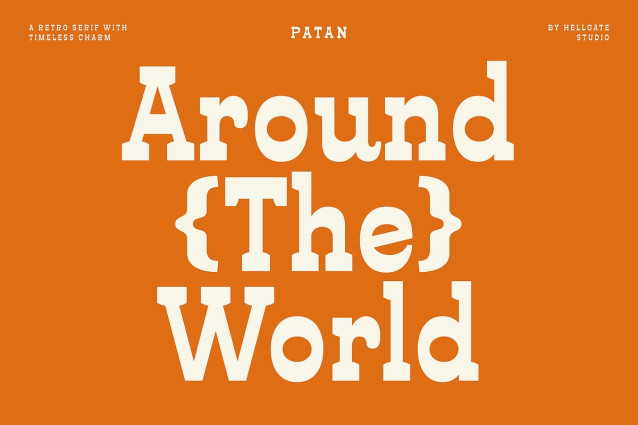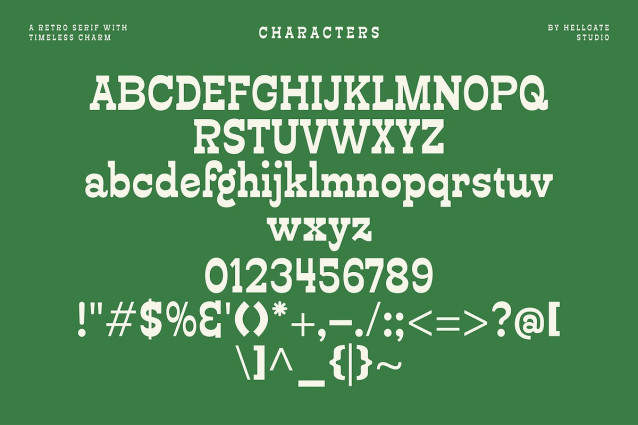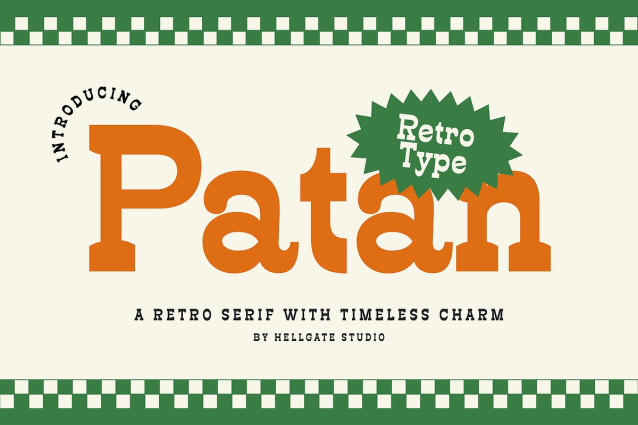
Patan Font
Patan Font – Retro Serif Font was thoughtfully engineered for the retro-inspired designer. Imbued with a charming serif demeanor, this versatile font makes customization a breeze. Tailoring the text and color to suit your unique needs is smooth and effortless, making it a standout choice for those who yearn to express their creativity with a distinctive edge.
Enrich your retro-themed projects with the character and quality of Patan Retro Serif Font.